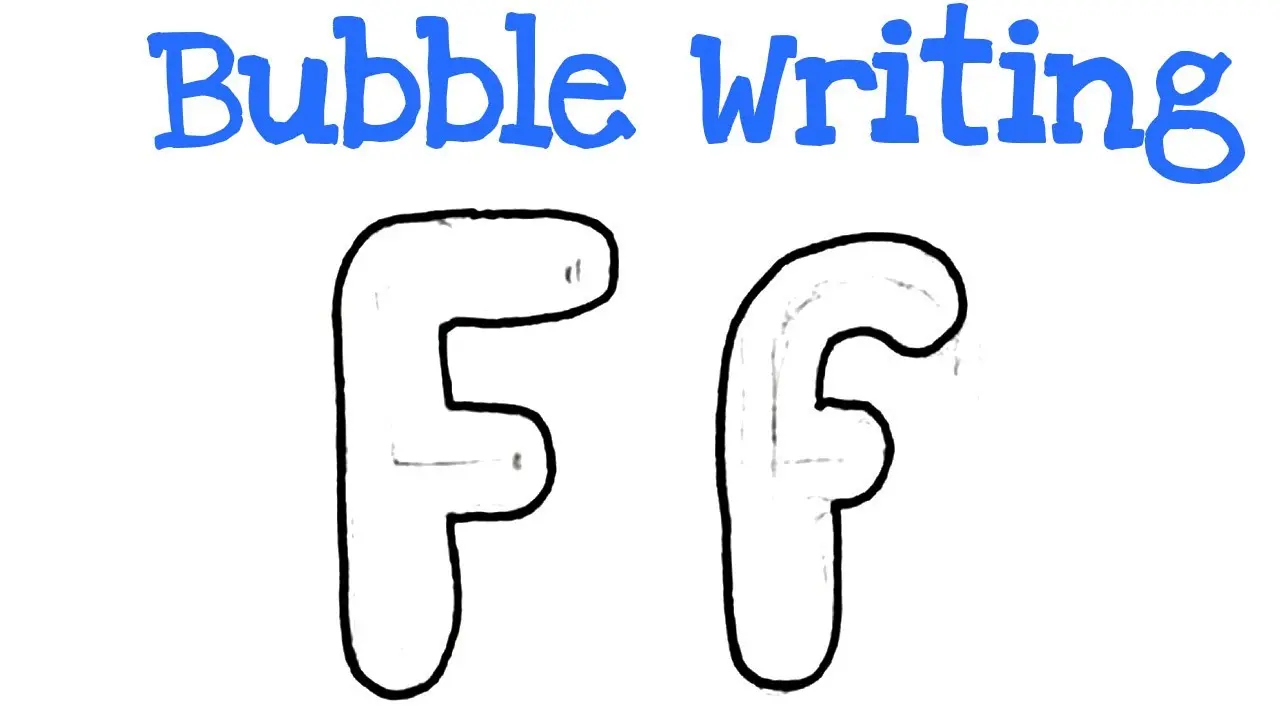
f in bubble letters
F in Bubble Letters Easy Styles, Drawing Tips, and Creative Ideas
Learning how to draw f in bubble letters can make simple writing look fun, bold, and creative. Bubble lettering gives the letter F a soft, rounded shape that works well for posters, school projects, cards, notebooks, and digital designs.
You do not need advanced drawing skills to create attractive bubble letters. With a pencil, a simple outline, and a few creative details, you can turn an ordinary F into a colorful design that stands out.
What Does F in Bubble Letters Look Like?
An f in bubble letters usually has thick lines, rounded corners, and enough space inside the shape for colors or patterns. Instead of writing a thin traditional F, you build a larger outline around the basic letter.
The final design can look soft, playful, cartoon-like, or even slightly three-dimensional. The style depends on how thick you make the outline and what decorations you add afterward.
How to Draw F in Bubble Letters Step by Step
Start by lightly drawing a normal capital letter F with a pencil. Keep enough space around the letter because you will create a larger outline around its original shape.
Next, draw rounded lines around every part of the F. Avoid sharp corners where possible. Connect the outer lines smoothly until the letter looks thick and inflated.
Once the shape looks balanced, erase the original guide letter inside. You will now have a clean bubble-style F that you can trace with a black marker.
This basic method makes drawing f in bubble letters simple for beginners. You can repeat the process several times until you feel comfortable with the proportions.
Capital F Bubble Letter Style
A capital bubble F works especially well for headings, names, posters, and classroom decorations. Its tall vertical line creates enough room for patterns, shadows, and other decorative elements.
Keep the upper horizontal section slightly longer than the middle section. Rounded edges will help the letter maintain the classic bubble appearance rather than looking like a normal block letter.
You can also make the letter wider if you want a softer cartoon effect. Wider letters usually provide more space for creative coloring.
Lowercase F in Bubble Letters
A lowercase f in bubble letters can look more playful because the shape naturally includes curves. Start with a simple lowercase f and slowly add thickness around the original line.
You can exaggerate the curved top section to create a more decorative appearance. Keep the bottom section smooth so the finished letter remains easy to recognize.
Lowercase bubble letters work nicely when writing full words because they can connect visually with other rounded letters.
Add a 3D Effect to Your Bubble F
A simple shadow can make your bubble letter look more professional. Draw another line slightly behind the right and bottom edges of the letter.
Fill this added section with darker shading. The darker area creates the illusion that the F is standing above the page.
Another method involves adding a small highlight inside one side of the letter. A white curved highlight can make the shape look shiny and inflated like a balloon.
Creative Ways to Decorate Bubble Letter F
After creating the basic shape, you can decorate f in bubble letters with many different patterns. Small dots, stars, hearts, stripes, and zigzag lines can make the design more interesting.
You can also divide the inside of the letter into sections and use different colors in each area. Gradient coloring works well because it adds more depth without changing the original shape.
For a simple design, use one bright color inside the letter and a darker shade for the outline. This combination keeps the F readable while making it visually stronger.
Bubble Letter F for School Projects
Bubble letters remain popular for school posters because they create large, readable headings. Students can use a bubble F when decorating project titles, bulletin boards, folders, or presentation materials.
Teachers may also use printable bubble letters for classroom displays. Large letters can be cut out, colored, and placed on walls to create custom words or alphabet decorations.
The rounded design makes bubble lettering especially suitable for younger students who enjoy creative handwriting and coloring activities.
Using F Bubble Letters for Names
You can use a bubble F as the first letter of names such as Fatima, Farah, Felix, Frank, Fiona, or Florence. Making the first letter larger than the remaining letters can create an attractive name design.
Drawing f in bubble letters also works well for personalized birthday cards or handmade gifts. Add small illustrations around the letter that match the person’s interests.
Final Thoughts
Creating f in bubble letters is an easy way to turn a simple alphabet letter into a bold and creative design. You can keep the letter simple or add colors, shadows, highlights, patterns, and decorative details.
Whether you use bubble lettering for school projects, crafts, digital designs, or personalized artwork, the basic drawing method stays simple. With regular practice, you can create many different styles while keeping the letter F clear, fun, and easy to recognize.